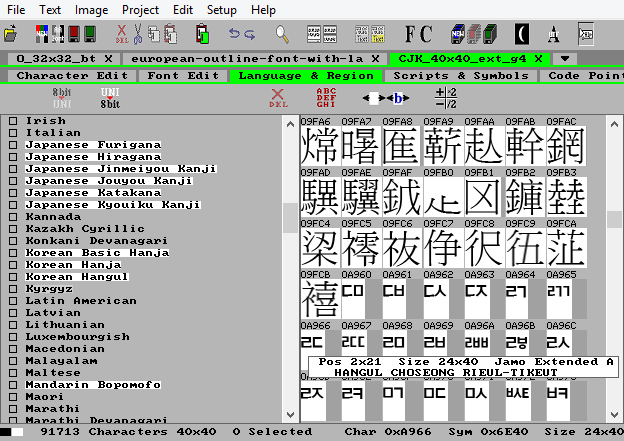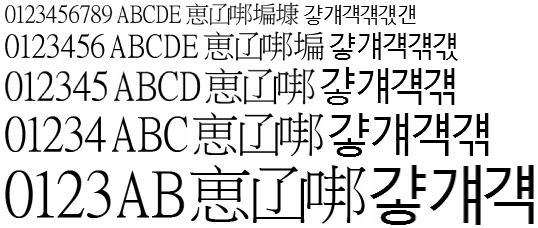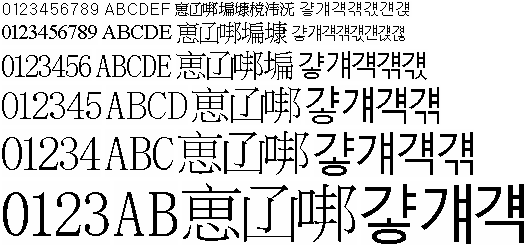
The Asian Multiplane Unicode Font Library in C-source code
The Asian CJK font library contains national symbols and characters for Eastern Asian countries.
Black&White and Grey Intensity Level C-source code 16 bit and 32 bit Unicode font library.
Simplified Chinese for Mainland China, Singapore, and Malaysia.
Traditional Chinese for Hong Kong, Taiwan, Macao, and Chinese in North America.
Japanese Kanji Ideographs.
Korean Hanja Ideographs and Hangul Ideographs.
Asian Font Library Introductoin
Together The Asian font library and the European font library covers most of the World.
The Asian font library contain 40105 characters (mostly Ideographs) as 1 bpp Black & White, 2bpp Windows ClearType, and 4bpp Extra Smooth Anti Alias:
All characters and ideographs in the fonts are encoded in this general C source code format:
Font Library Content
The grey-level anti-alias CJK characters has sizes from 24x24, 32x32, 40x40, 48x48, to 64x64:
The black & white CJK characters has sizes from 16x16, 24x24, 32x32, 40x40, 48x48, to 64x64:
The Asian font library has about 40000 characters in each font, and they cover:
- ASCII - Numbers and American English
- Chinese Bopomofo - Zhuyin Characters for writing pronunciation of spoken Chinese and Mandarin
- Chinese Simple - Hanzi Ideographs used in Chinese in China, Singapore and Malaysia
- Chinese Traditional - Hanzi Ideographs used for Chinese in Hong Kong and Taiwan
- Japanese Kyouiku Kanji - Kanji Ideographs used for basic education in Japanese
- Japanese Jouyou Kanji - All Kanji Ideographs used for higher education in Japanese
- Japanese Jinmeiyou Kanji - All Kanji Ideographs needed for Names and Japanese Language Proficiency
- Japanese Hiragana - Characters for writing words for which there are no Kanji or Ideograph
- Japanese Katakana - Characters for writing words from Other Languages or Technical Terms
- Korean Basic Hanja - Hanja Ideographs generally known in Korea
- Korean Hanja - Hanja Ideographs at HighSchool level in Korea
- Korean Hangul - Hangul Ideographs covered by the South Korean Standard for pronunciation
- Unified Ideographs Han - Additional Chinese and Japanese characters in Unicode Basic Language Plane
- Unified Ideographs Han Extension A - Additional Chinese and Japanese characters in Unicode Basic Language Plane